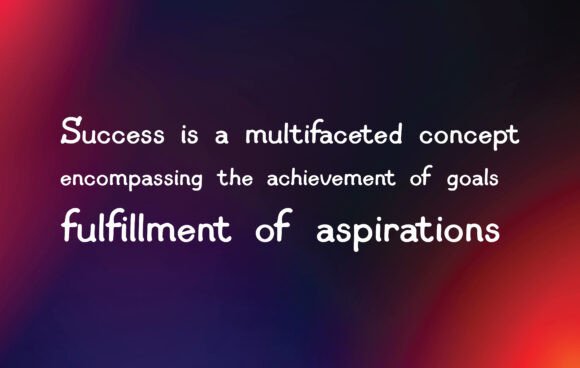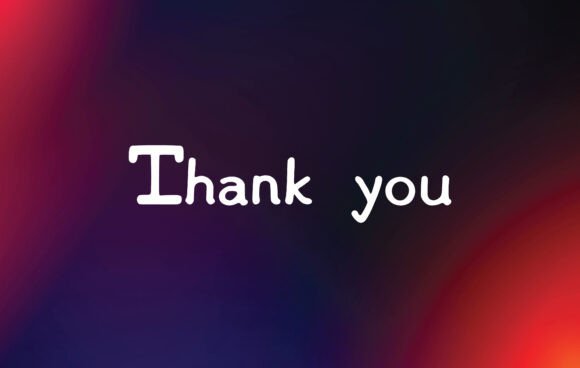
Discover the Beauty of Belair Font: Elevate Your Designs with this Lovely Handwritten Font
Are you a designer or crafter looking for a font that can take your creative ideas to the next level? Look no further than the Belair Font. This lovely and beautiful handwritten font is perfect for creating eye-catching logos, branding, and quotes that will leave a lasting impression on your audience.
What Makes Belair Font So Special?
Belair Font is a unique and elegant handwritten font that is designed to add a touch of sophistication and style to any design project. Its beautiful and flowing lines make it perfect for creating a wide range of designs, from logos and branding to quotes and social media graphics.
The Benefits of Using Belair Font
So why choose Belair Font for your next design project? Here are just a few benefits of using this lovely handwritten font:
- Elegant and Sophisticated: Belair Font has a beautiful and elegant look that will add a touch of sophistication to any design project.
- Versatile: Belair Font can be used for a wide range of design projects, from logos and branding to quotes and social media graphics.
- Easy to Read: Belair Font is easy to read, making it perfect for creating designs that need to be understood quickly and easily.
- Unique: Belair Font has a unique and distinctive look that will help your designs stand out from the crowd.
How to Use Belair Font in Your Designs
Using Belair Font in your designs is easy. Here are a few tips to get you started:
- Pair it with Other Fonts: Belair Font looks great when paired with other fonts. Try pairing it with a bold sans-serif font for a striking contrast.
- Use it for Headings: Belair Font is perfect for creating headings and titles. Use it to add a touch of elegance and sophistication to your designs.
- Add some Color: Belair Font looks great in a variety of colors. Try adding some color to your designs to make them really stand out.
Why Designers and Crafters Love Belair Font
Designers and crafters love Belair Font for a variety of reasons. Here are a few:
- It’s Versatile: Belair Font can be used for a wide range of design projects, making it a great choice for designers and crafters who want to create a variety of designs.
- It’s Unique: Belair Font has a unique and distinctive look that will help designers and crafters create designs that stand out from the crowd.
In conclusion, Belair Font is a lovely and beautiful handwritten font that is perfect for designers and crafters who want to take their creative ideas to the next level. Its elegant and sophisticated look, versatility, and ease of use make it a great choice for a wide range of design projects. Whether you’re creating logos, branding, or quotes, Belair Font is sure to help you create designs that are eye-catching and effective.